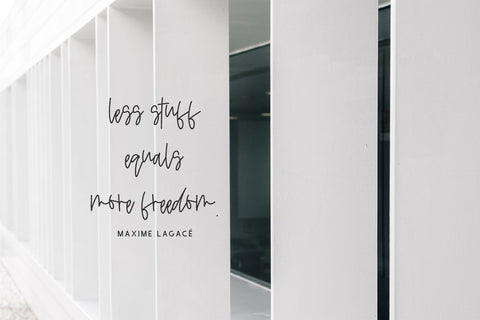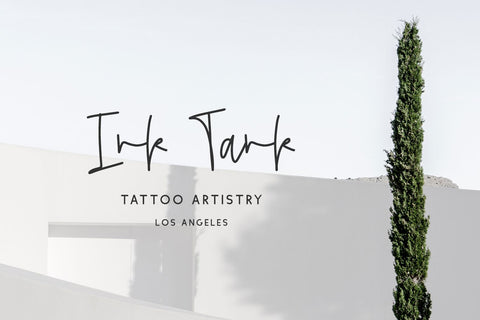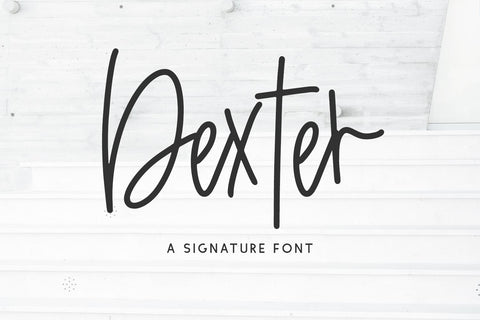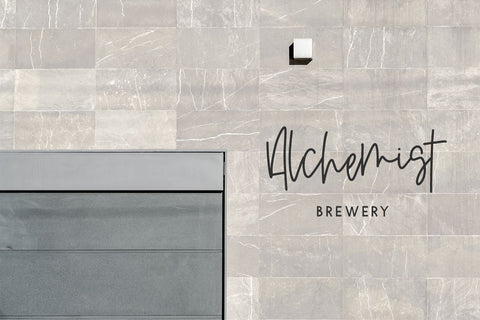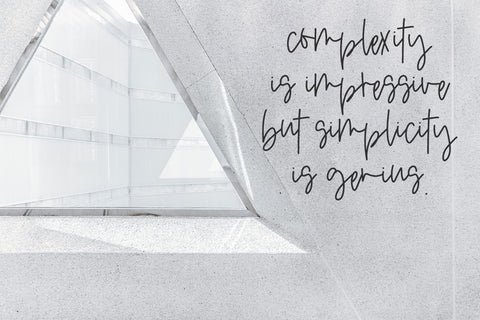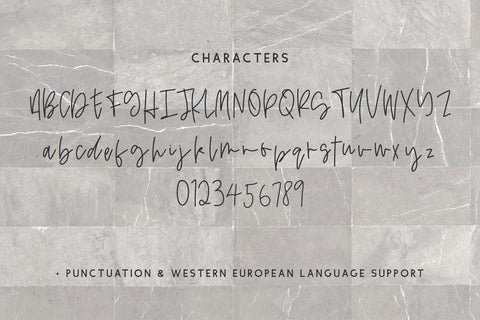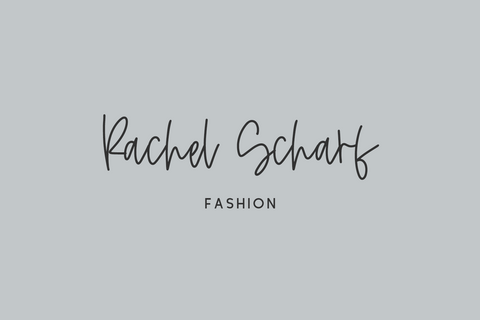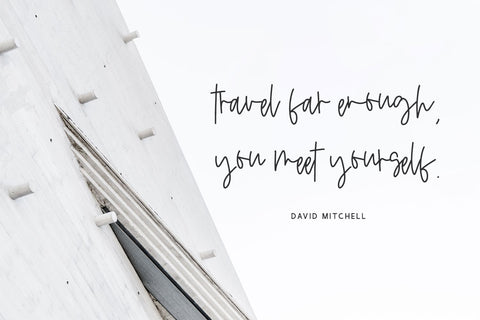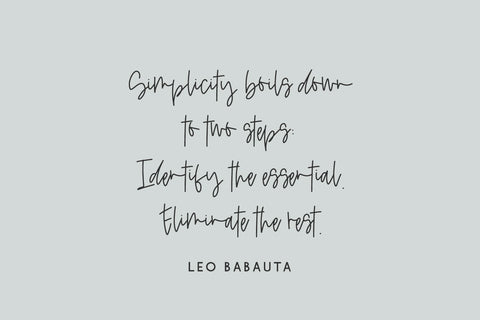
Dexter Signature Font
Introducing Dexter Script, a messy signature font.
Dexter Script is best for:
- logos + branding for gender-neutral applications
- website design + website accents - think design blogs, travel blogs, fashion blogs, & more
- clean print design, like magazines + flyers
- header elements that need handwritten touch
- quote graphics for social media
Dexter Script includes:
- full upper + lowercase characters
- numbers + punctuation
- Western European Language Support